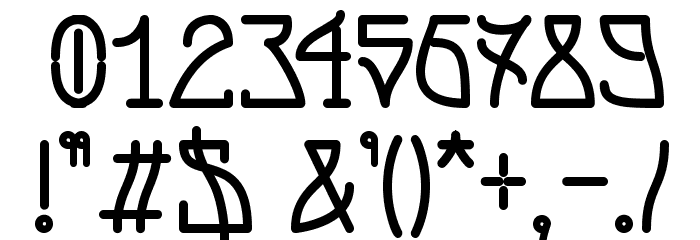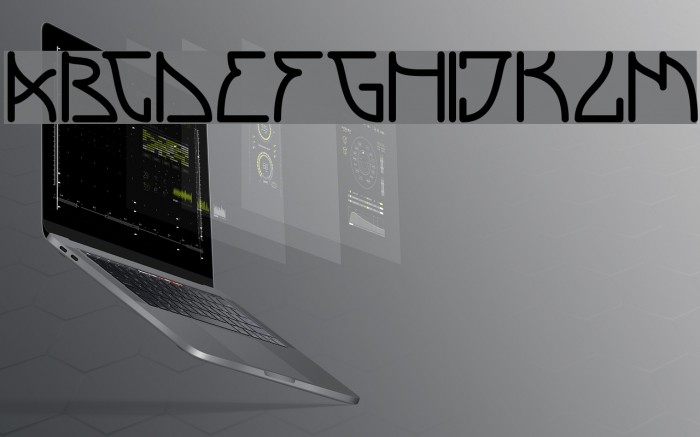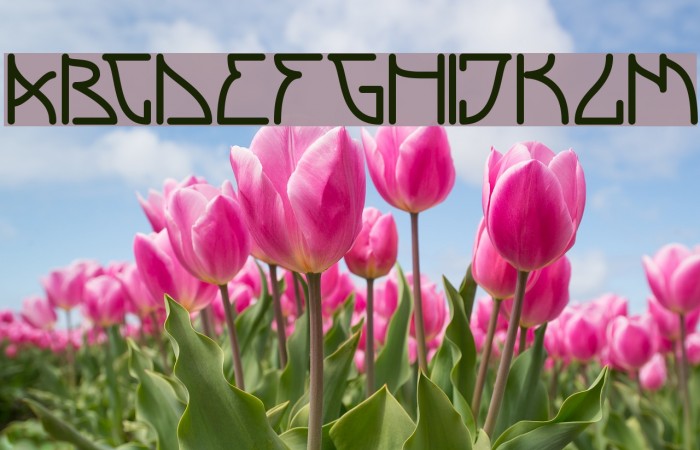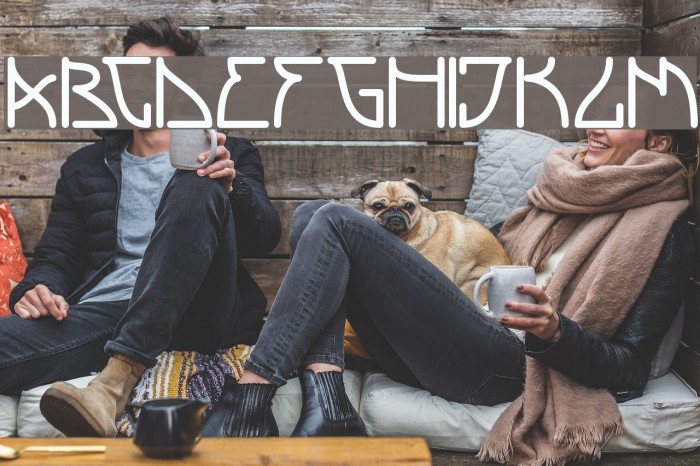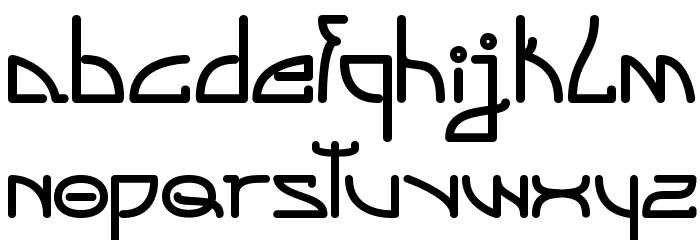
Szwederowo Font
This font features a unique and modern design with a futuristic flair. The characters are composed of bold, rounded strokes that form geometric shapes, giving it a distinct and eye-catching appearance. The uppercase and lowercase letters maintain a consistent style, with some characters incorporating playful loops and curves. The numbers and special characters follow the same design principles, ensuring a cohesive look across all elements. The font's structure is both artistic and functional, making it suitable for creative projects that require a standout typeface.
A modern, geometric font with bold, rounded strokes and a futuristic style.
• Proposed Projects: Ideal for branding, posters, album covers, and any project that requires a modern and artistic touch.
• Category: Decorative/Display
• Overall Style: Modern
• Use Case: Headlines, Logos, Posters